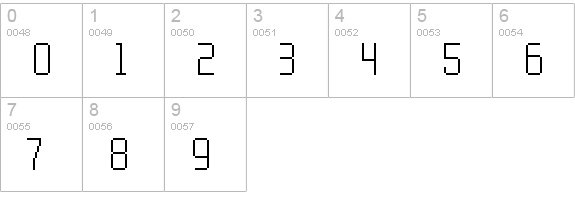
Pro55 Font Details
Introducing Pro55 font, a sleek and modern typeface that exudes sophistication and elegance. With its clean lines and balanced proportions, Pro55 is perfect for a wide range of design projects, from branding to editorial work. This versatile font strikes the perfect balance between professionalism and creativity, making it a go-to choice for designers looking to make a statement. What's even better is that Pro55 is available for free download at FontsMarket.com. Now you can add this beautiful font to your collection without breaking the bank. Don't miss out on the opportunity to elevate your designs with Pro55 - download it today and bring a touch of class to your projects.